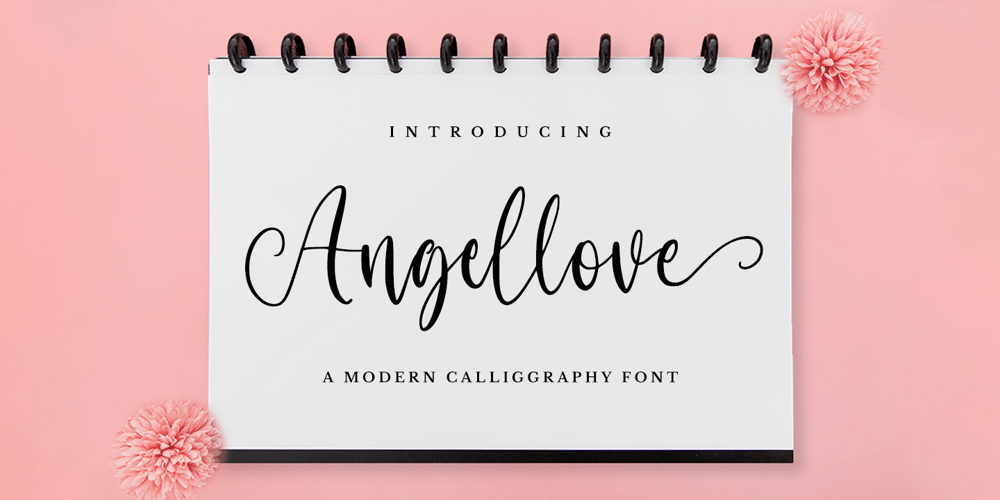
Angellove
Angellove font
Angellove Font Family was designed by Novia Himatunnisa and published by Nissa Nana. Angellove contains 1 styles and family package options. Angellove is a beautiful and elegant script font. Its modern and classy look makes it the perfect font for creating outstanding DIY projects! This font is PUA encoded which means you can access all of the glyphs and swashes with ease! It features a varying baseline, smooth lines, gorgeous glyphs and stunning alternates.